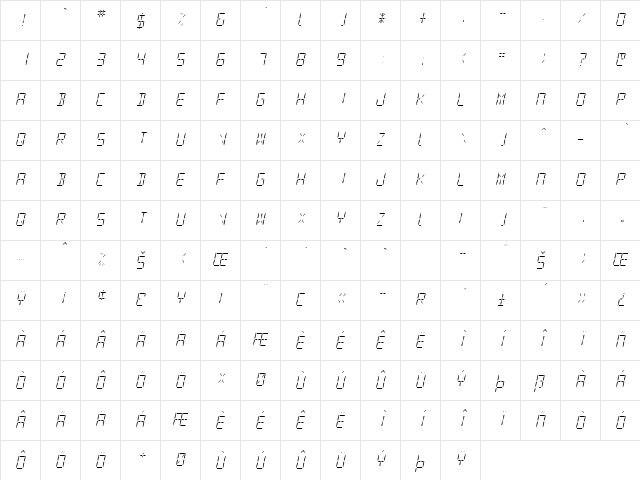
SF Digital Readout Light Oblique Font Preview
Design Context for SF Digital Readout Typeface
SF Digital Readout channels digital-age aesthetics through its sharp, structured letterforms — ideal for brands that want to signal innovation. Its italic angle brings a sense of urgency and motion to the letterforms. The delicate stroke weight brings airiness and refinement to layouts.